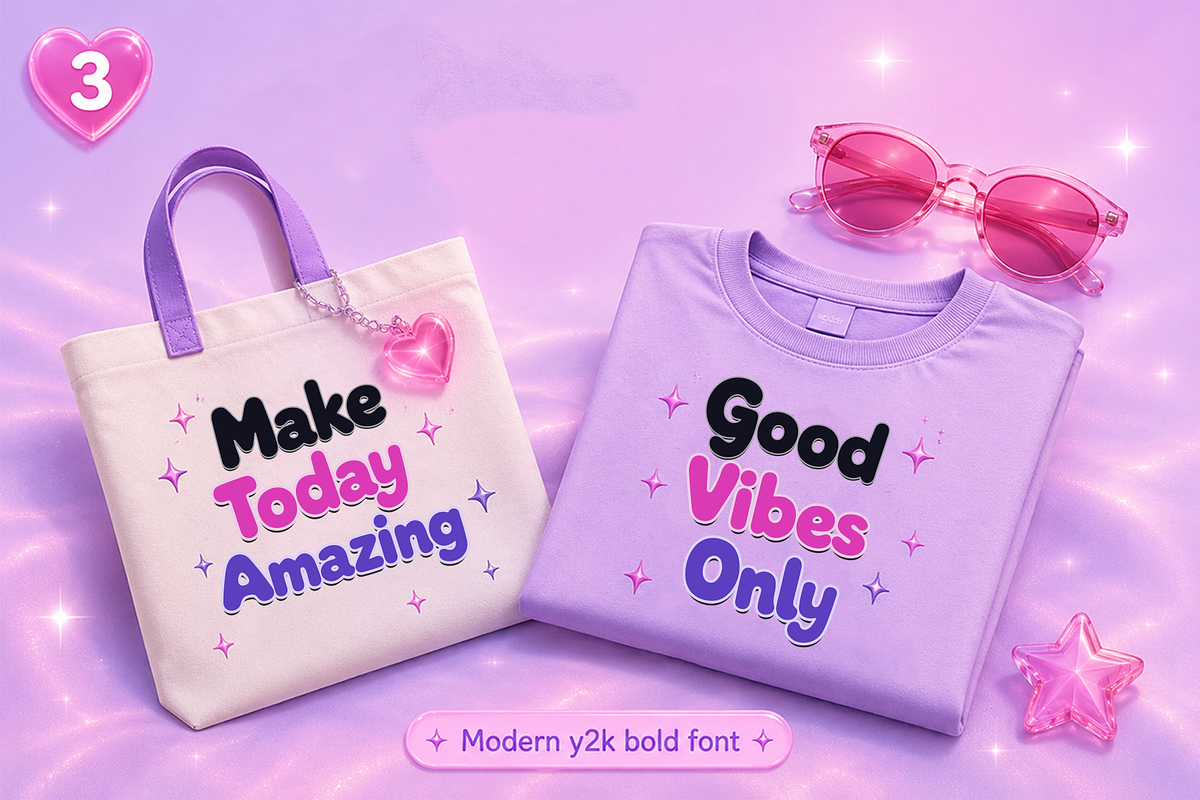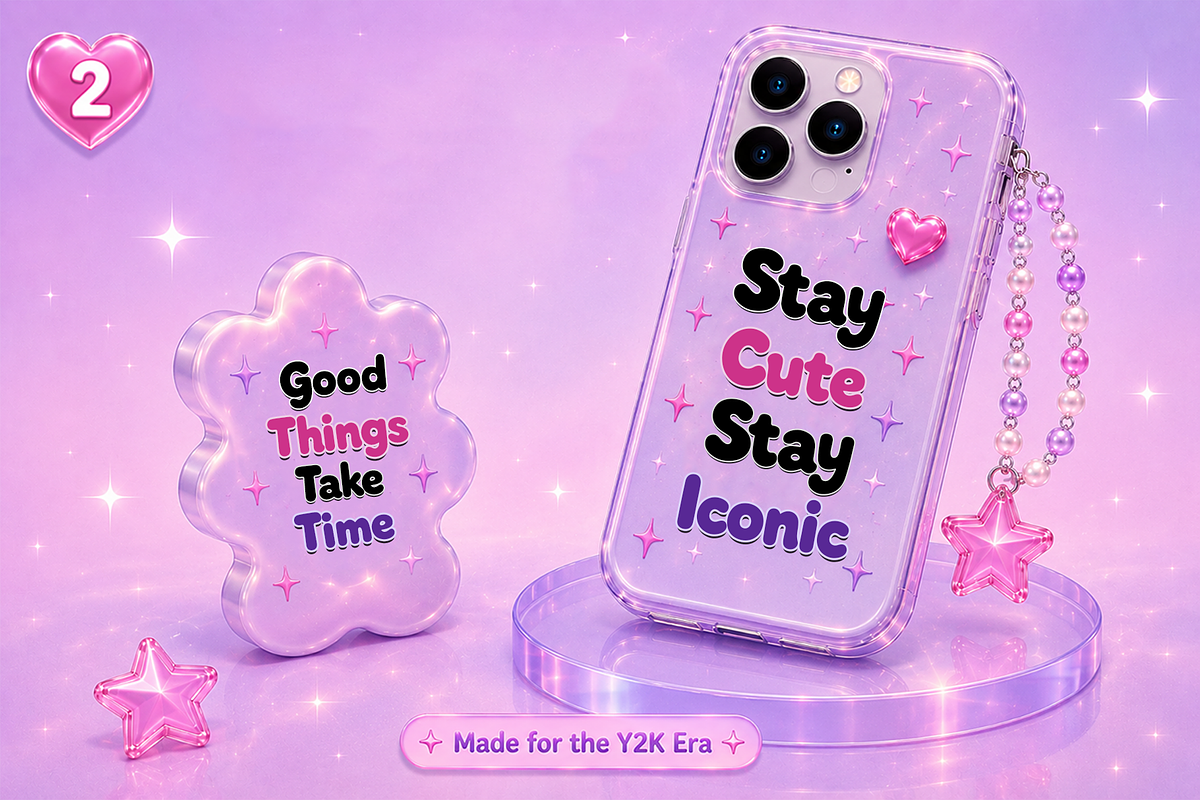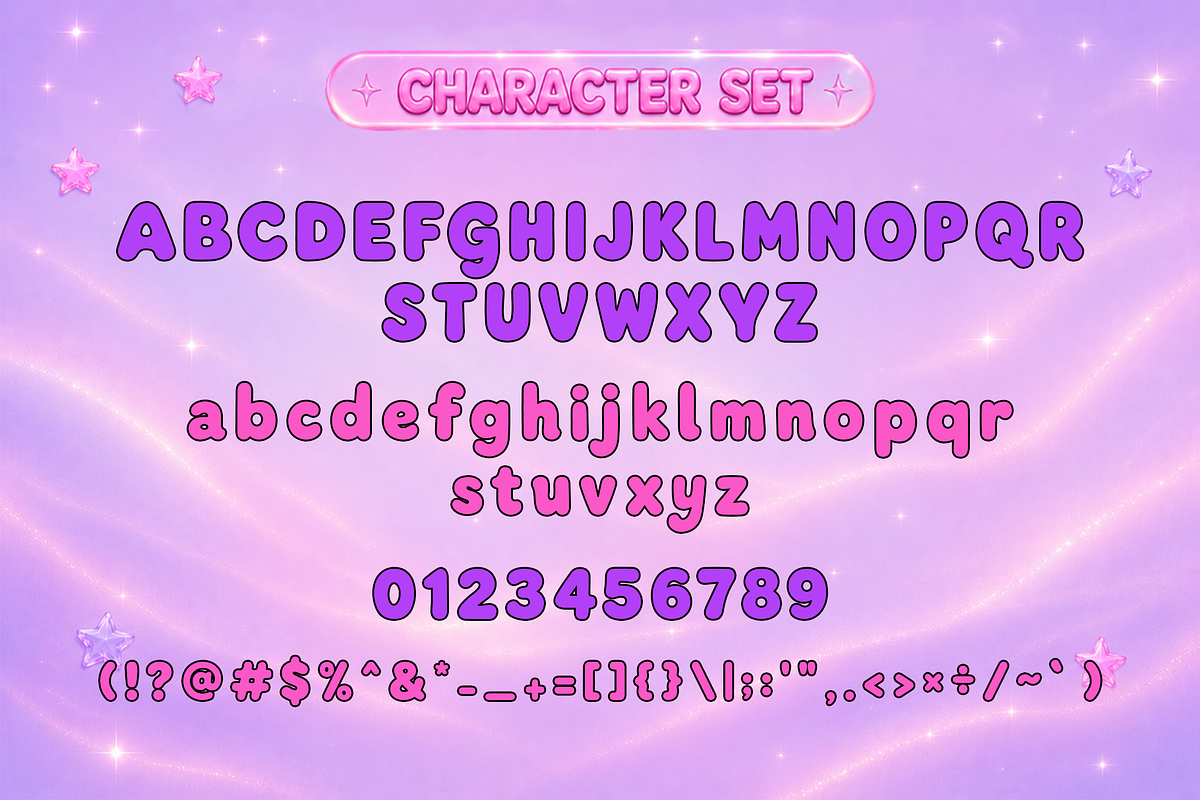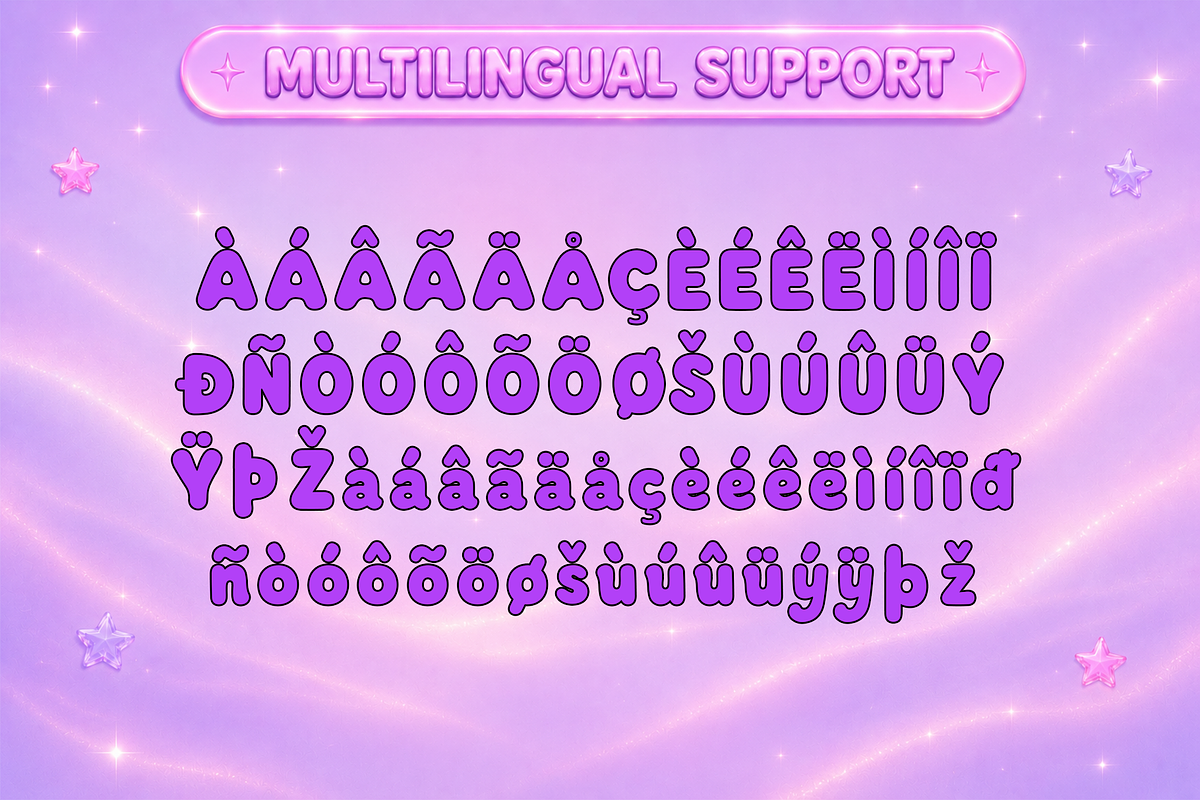
Glitter Sync - Modern Y2K Bold Font
Meet Glitter Sync, a modern Y2K bold font that captures the vibrant spirit of early 2000s digital culture with a fresh contemporary twist. Featuring bold letterforms, futuristic curves, and eye-catching details, this typeface embodies the iconic Y2K aesthetic while delivering the strong visual presence demanded by modern design trends. Its energetic style makes it perfect for projects that need to stand out and leave a lasting impression.
Expertly crafted for versatility and impact, Glitter Sync includes uppercase and lowercase characters, numerals, punctuation, symbols, and multilingual support. Its bold structure ensures excellent visibility across print and digital media while maintaining the playful and futuristic aesthetic that defines Y2K design culture.